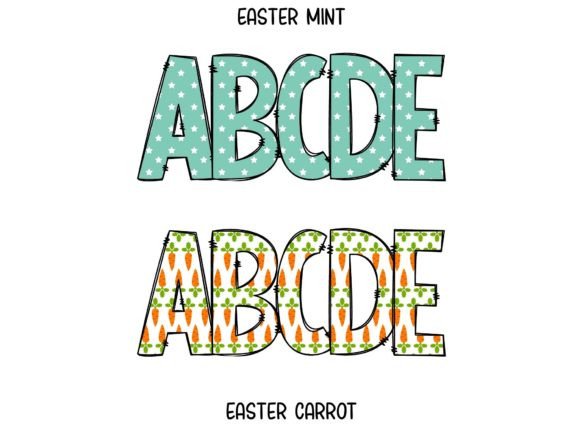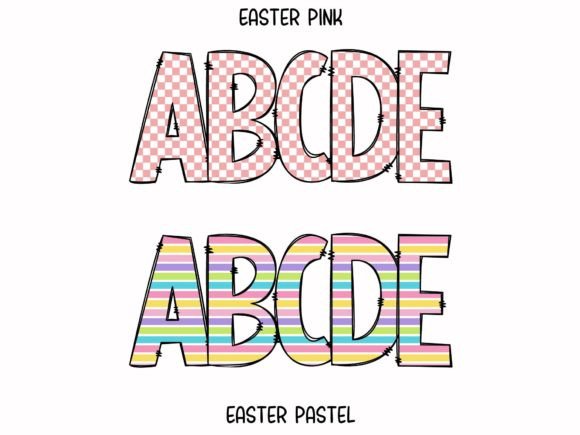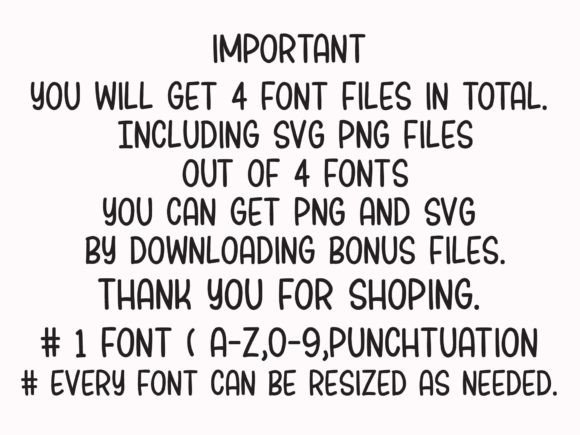
Easter Font: Add a Burst of Energy to Your Designs with Vibrant Hues
Are you looking for a font that can add a fun and playful touch to your designs? Look no further than the Easter font! This vibrant and energetic font is perfect for creating eye-catching headlines, logos, and social media graphics that are sure to stand out. With its range of bright colors, you can make a bold statement and bring a smile to your audience’s faces.
What is Easter Font?
The Easter font is a unique and playful color font that is designed to add a burst of energy to your designs. It’s ideal for designers and crafters who want to create fun and festive designs for Easter or any other occasion. The font comes in a range of bright colors, allowing you to choose the perfect hue to match your brand or design style.
Uses for Easter Font
The Easter font is versatile and can be used for a variety of design projects, including:
• Headlines and titles: Add a pop of color to your headlines and titles with the Easter font.
• Logos: Create a fun and playful logo for your business or brand with this unique font.
• Social media graphics: Use the Easter font to create eye-catching social media graphics that will stand out in crowded feeds.
• Craft projects: The black version of the Easter font is compatible with Cricut Design Space and other cutting machines, making it perfect for craft projects like paper crafting, vinyl cutting, and more.
Tips for Using Easter Font
To get the most out of the Easter font, here are some tips:
• Experiment with different colors: The Easter font comes in a range of bright colors, so don’t be afraid to experiment and find the perfect hue for your design.
• Use it for headlines and titles: The Easter font is perfect for adding a pop of color to your headlines and titles.
• Pair it with other fonts: Try pairing the Easter font with other fonts to create a unique and eye-catching design.
The Easter font is a fun and playful color font that can add a burst of energy to your designs. With its range of bright colors and versatility, it’s perfect for designers and crafters who want to create eye-catching designs for Easter or any other occasion. Whether you’re creating headlines, logos, or social media graphics, the Easter font is sure to bring a smile to your audience’s faces.